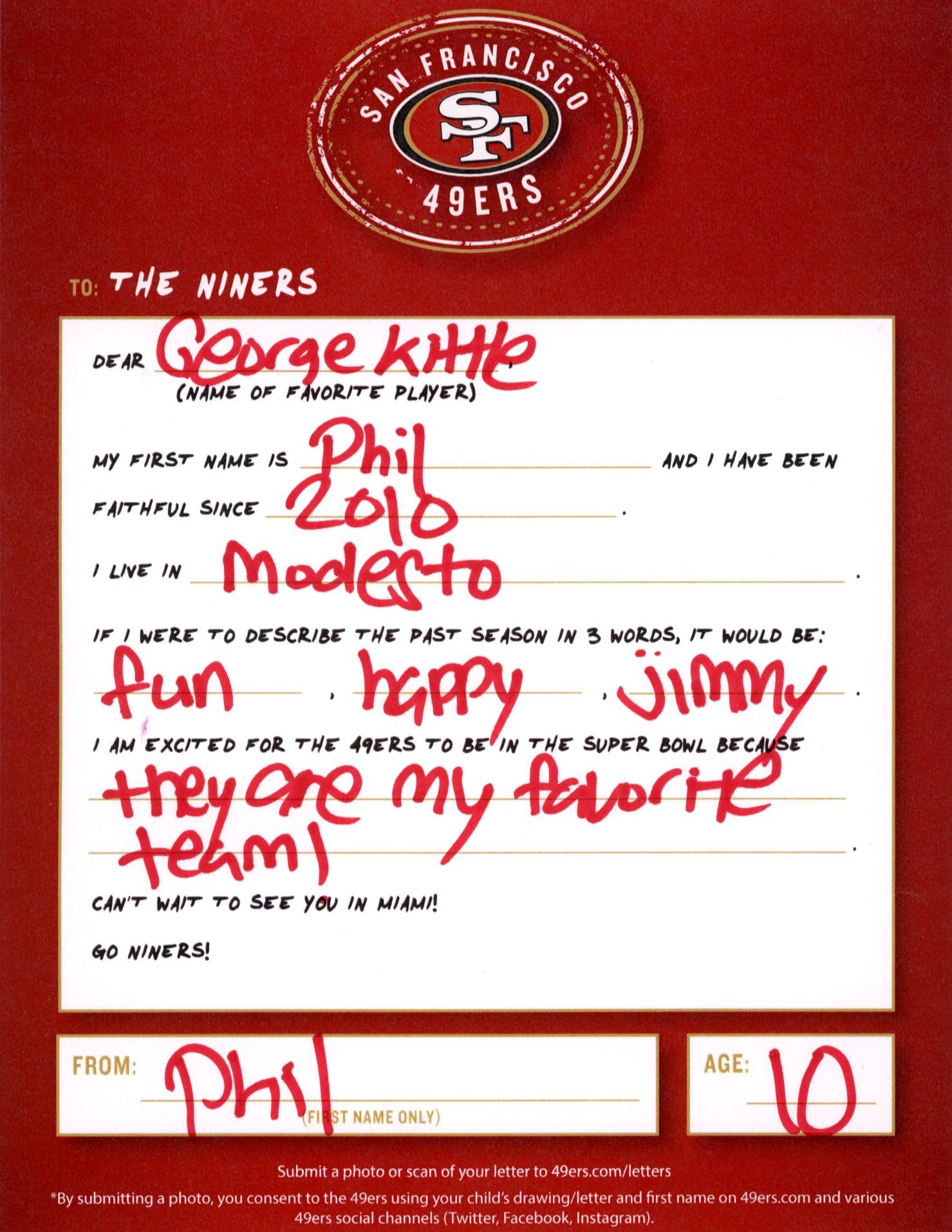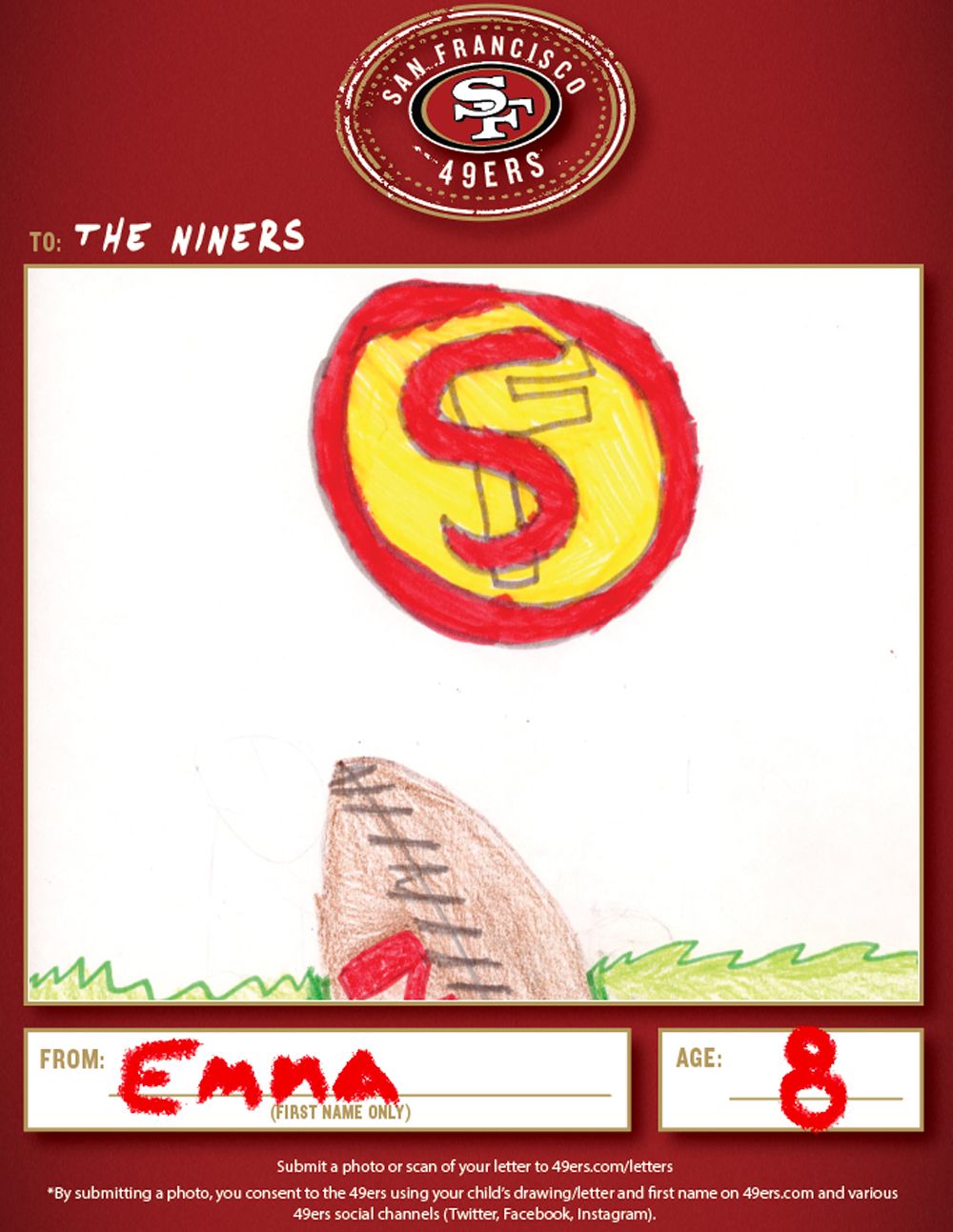
The san francisco 49ers team was established in 1946 at san francisco of the usa.
Lettering 49ers font. Size quentin caps by dieter steffmann. And now we going to bestow you a font that used for the san francisco 49ers team. 1001 free fonts offers a huge selection of free fonts.
Faithful font created the faithful font to match the existing san francisco 49ers logos. Every font is free to download. This team has a huge fan in america and over the world.
This rugby team is one of the most successful teams in nfl history. The closest free font you can get is kameron bold font. Nfl redzone font 1001 free fonts.
This font will be used for the marketing team for numerous print collateral brand identity and campaign. The closest font you can get for the san francisco 49ers logo is clarendon std bold font. Generate a jersey for your youth league or mimic a professional nfl jersey all for free.